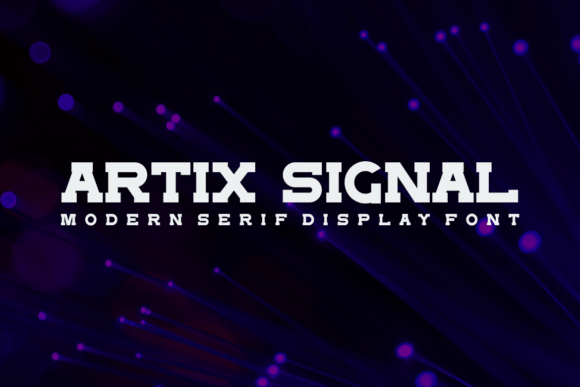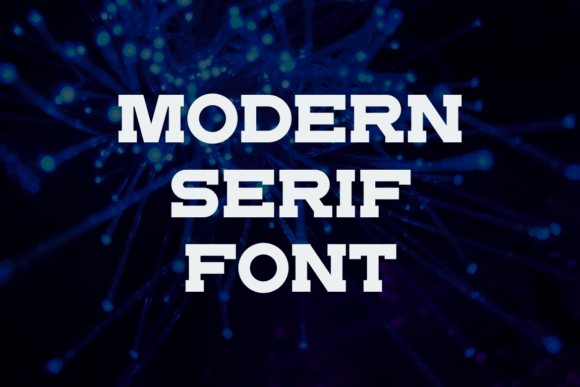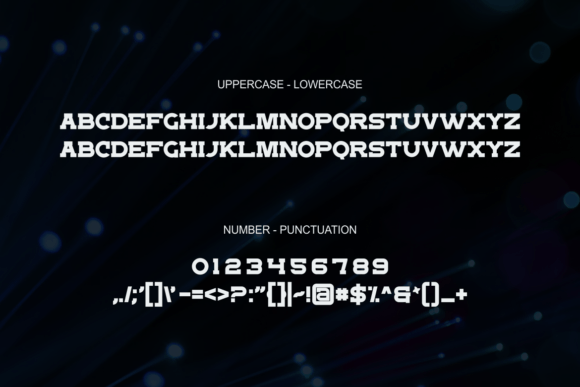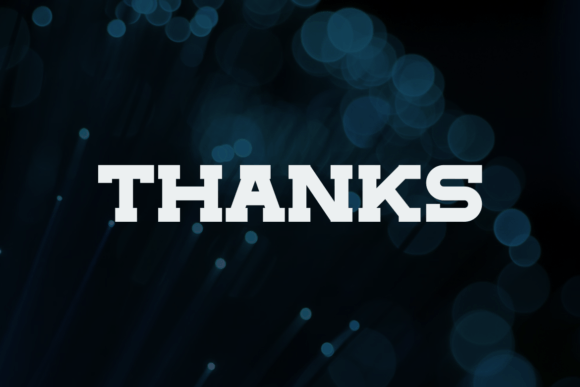
Introducing Artix Signal Font: Elevate Your Designs with Sophistication
In the world of typography, fonts play a crucial role in conveying the message and aesthetic of a design. For designers and crafters looking to add a touch of elegance and professionalism to their projects, the Artix Signal Font is an excellent choice. This stylish, modern serif font is designed to bring a fresh and sophisticated look to both print and digital designs.
What is Artix Signal Font?
Artix Signal is a modern serif font that boasts clean lines and elegant curves. Its design is carefully crafted to provide a perfect balance between style and readability, making it an ideal choice for a wide range of design projects. Whether you’re working on a logo, brochure, website, or any other visual material, Artix Signal Font is sure to make a lasting impression.
Key Features of Artix Signal Font
- Modern Serif Design: Artix Signal features a contemporary serif design that sets it apart from traditional fonts. Its serifs are subtle yet distinctive, adding a layer of sophistication to your text.
- Clean Lines and Elegant Curves: The font’s clean lines and elegant curves ensure that your text is not only stylish but also highly readable. This makes it perfect for body text as well as headings.
- Versatility: Artix Signal is incredibly versatile and can be used for both print and digital designs. Whether you’re designing a business card, a website, or a mobile app, this font will bring a professional and fresh look to your project.
- Easy to Read: Despite its stylish appearance, Artix Signal is easy to read, making it suitable for long-form content as well as short headings and titles.
Use Cases for Artix Signal Font
The versatility of Artix Signal Font makes it suitable for a wide range of design projects. Here are some use cases where this font truly shines:
- Branding and Logos: Create a lasting impression with a stylish and professional logo that stands out from the crowd.
- Print Materials: Enhance your brochures, flyers, posters, and business cards with a touch of elegance and sophistication.
- Digital Designs: Use Artix Signal Font in your website designs, mobile apps, and digital marketing materials to provide a consistent and professional look.
- Packaging: Add a touch of style to your product packaging and make it more appealing to your target audience.
Why Choose Artix Signal Font?
With so many fonts available, why should you choose Artix Signal Font for your projects? Here are a few compelling reasons:
- Unique Style: Artix Signal offers a unique and modern style that will set your designs apart from the rest.
- High Readability: The font’s design ensures high readability, making it suitable for both short and long-form content.
- Professional Look: Add a touch of professionalism to your designs with a font that is both elegant and sophisticated.
Artix Signal Font is a stylish, modern serif font that is perfect for designers and crafters looking to add a touch of sophistication to their projects. With its clean lines, elegant curves, and high readability, it’s an excellent choice for both print and digital designs. Whether you’re working on a logo, website, or any other visual material, Artix Signal Font is sure to bring a fresh and professional look to your designs.